Have you tried asking the Etsy seller where you bought the stamp?
Here's a site where they have a tool to help identify fonts;
it looks hand written to me. most of the etsy sellers product handwritten scripts and make them into the stamps
@ClairDarling: the names are definitely hand written, but the address below is a font called Neutra.
I need some help identifying this font, and since you have all been so much help in the past I figured this would be the first place to ask...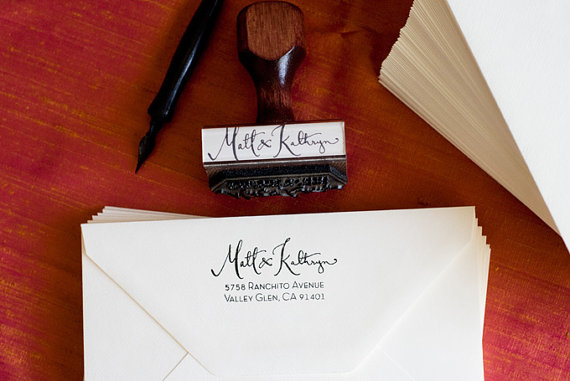
I purchased this stamp a couple months ago from here and I am trying to figure out what the font is under the calligraphy so I can match it for my invitation envelopes...